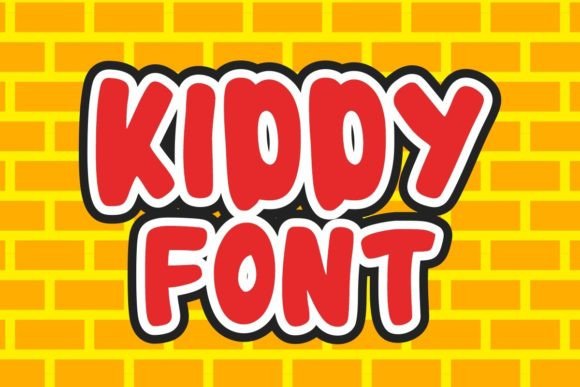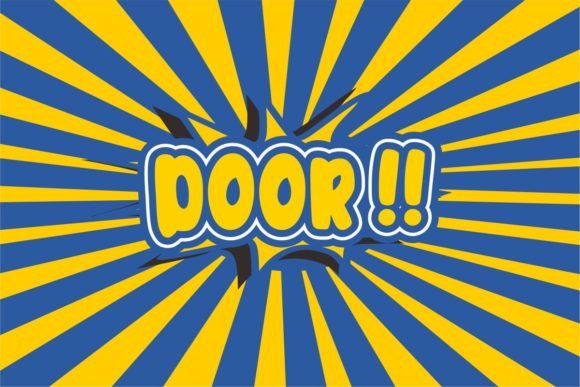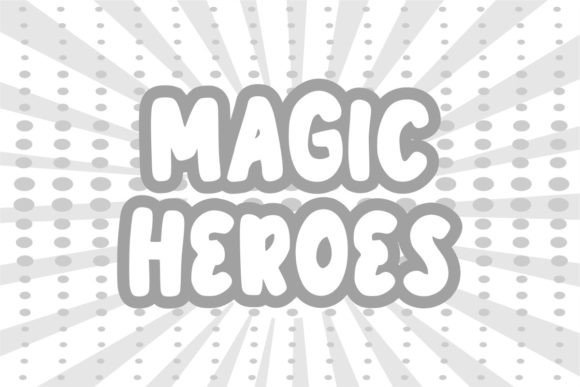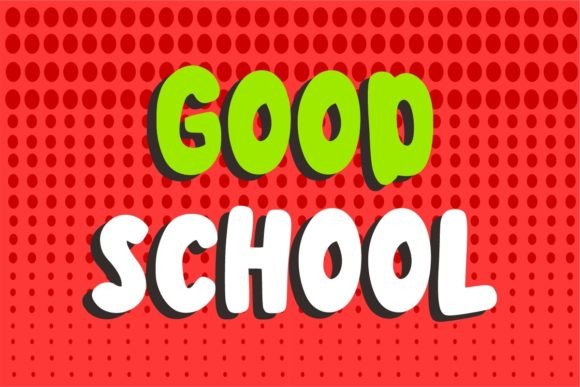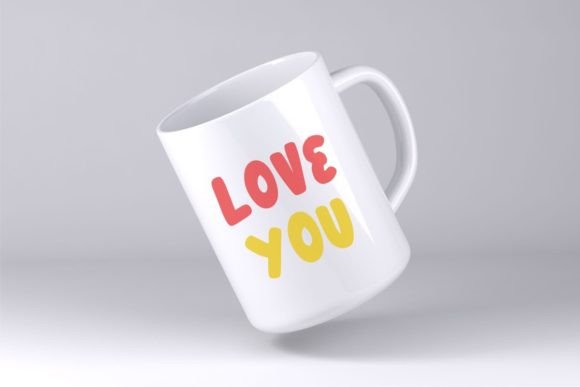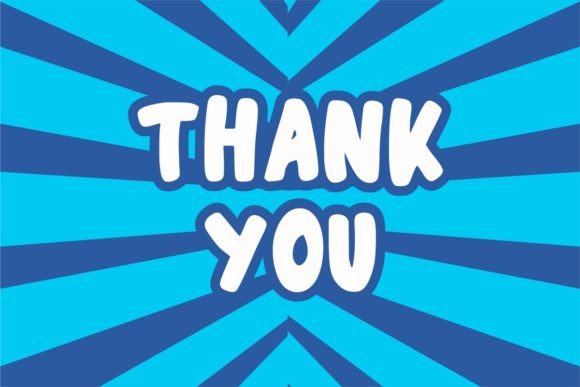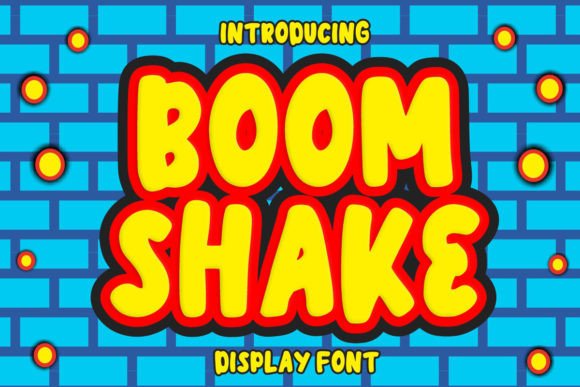
Introducing Boom Shake Font: The Ultimate Childish Comic Display Font
Are you tired of using the same old fonts for your designs, crafts, and presentations? Look no further! Boom Shake Font is here to add a playful touch to your projects. This childish comic display font is perfect for designers, crafters, and anyone looking to create fun and engaging content for kids.
What is Boom Shake Font?
Boom Shake Font is a unique and energetic font designed to bring a smile to your face. Its playful and childish style makes it ideal for a variety of projects, from digital designs and presentations to crafts, greeting cards, and posters for kids. Whether you’re a designer, crafter, or DIY enthusiast, this font is sure to become your go-to choice for adding a touch of whimsy to your work.
Features of Boom Shake Font
- Childish and playful style: Boom Shake Font has a fun and energetic vibe that’s perfect for kids’ projects.
- Comic display font: This font is designed to make a statement, with bold and eye-catching letters that are sure to grab attention.
- Versatile: Use Boom Shake Font for a variety of projects, from digital designs to crafts and presentations.
- Easy to read: Despite its playful style, Boom Shake Font is easy to read, making it perfect for titles, headings, and short paragraphs.
Uses for Boom Shake Font
Boom Shake Font is perfect for a wide range of projects, including:
- Crafts: Add a playful touch to your crafts, such as scrapbooking, card making, and DIY projects.
- Digital designs: Use Boom Shake Font in your digital designs, such as social media graphics, blog posts, and website headers.
- Presentations: Add some fun and energy to your presentations, whether you’re creating a slideshow for kids or a business presentation.
- Greeting cards: Create fun and playful greeting cards for kids’ birthdays, holidays, or special occasions.
- Posters and flyers: Use Boom Shake Font to create eye-catching posters and flyers for kids’ events, such as birthday parties, concerts, or festivals.
Why You’ll Love Boom Shake Font
Boom Shake Font is more than just a font – it’s a way to add personality and fun to your designs. Here are just a few reasons why you’ll love this font:
- Instant recognition: Boom Shake Font is sure to grab attention and make your projects stand out.
- Customizable: Experiment with different colors, sizes, and styles to make Boom Shake Font your own.
- Fun and playful: This font is sure to bring a smile to your face and add a touch of whimsy to your designs.
Tips for Using Boom Shake Font
Here are a few tips for getting the most out of Boom Shake Font:
- Use it sparingly: While Boom Shake Font is fun and playful, it can be overwhelming if used too much. Use it for titles, headings, or short paragraphs to add emphasis.
- Experiment with colors: Try pairing Boom Shake Font with bright, bold colors to really make your designs pop.
- Mix and match: Combine Boom Shake Font with other fonts to create a unique and interesting design.